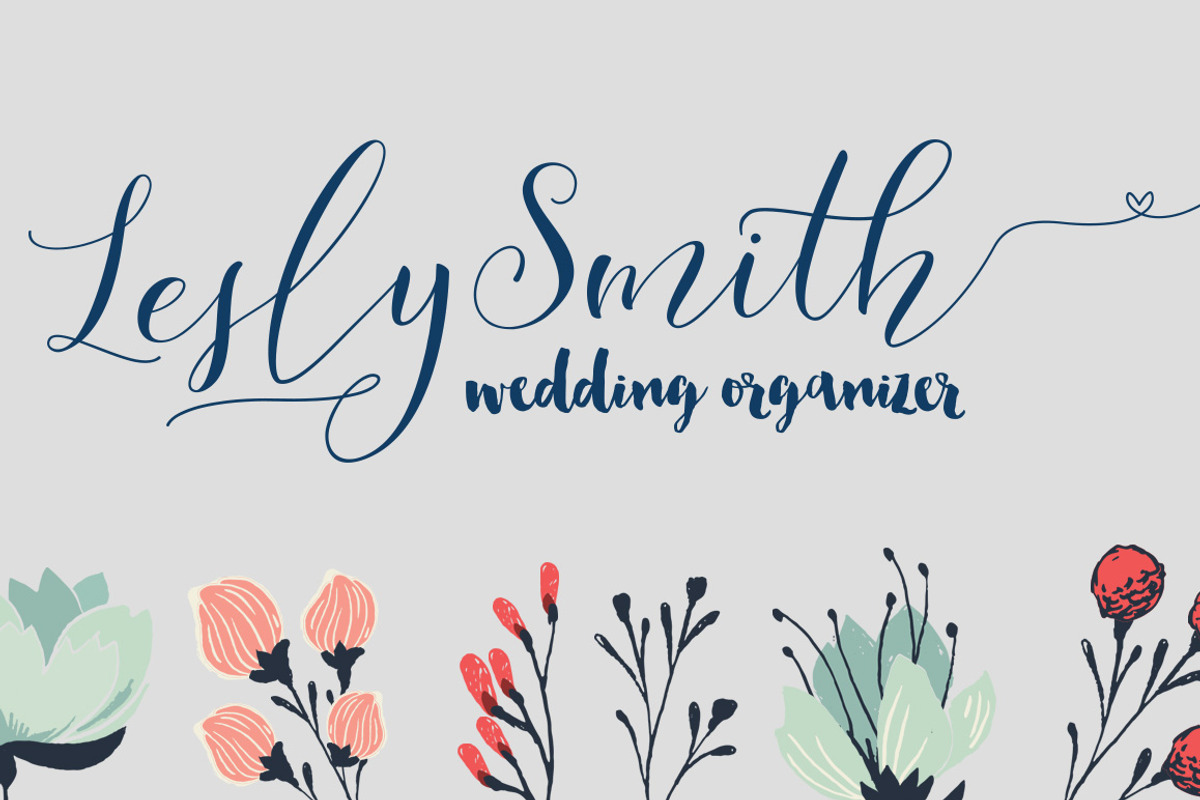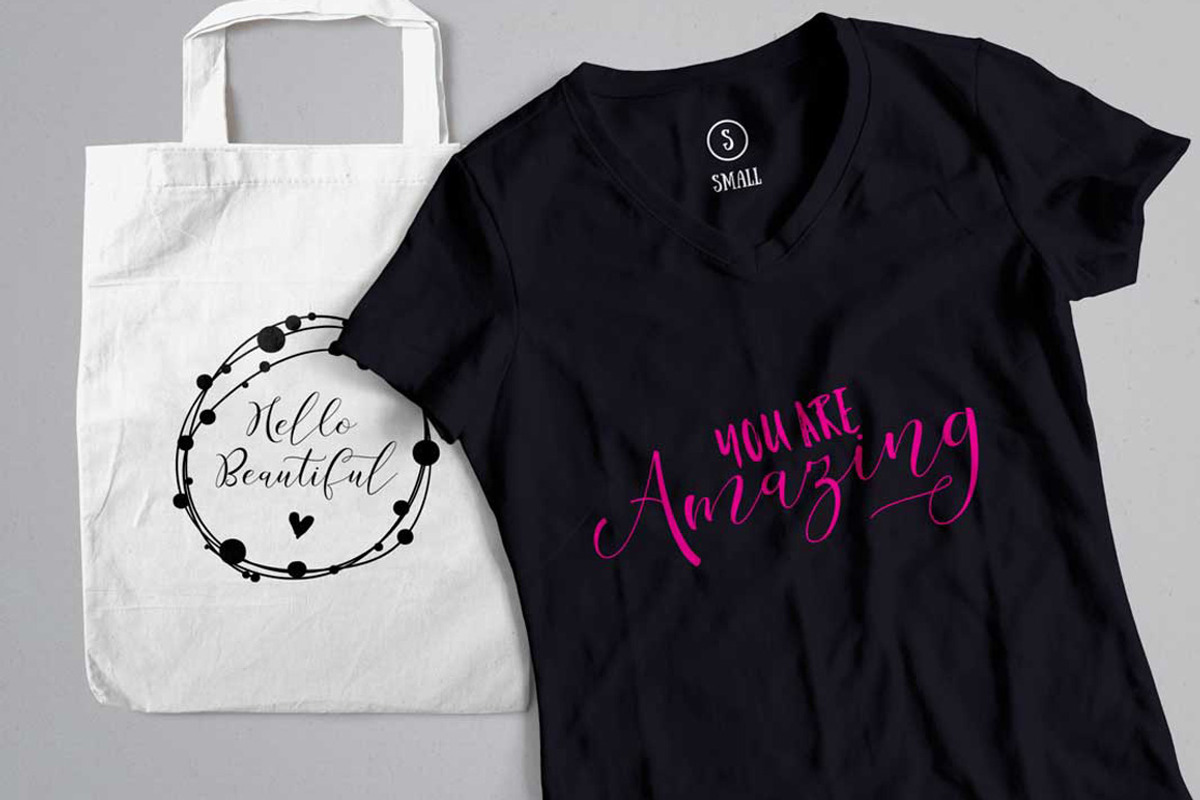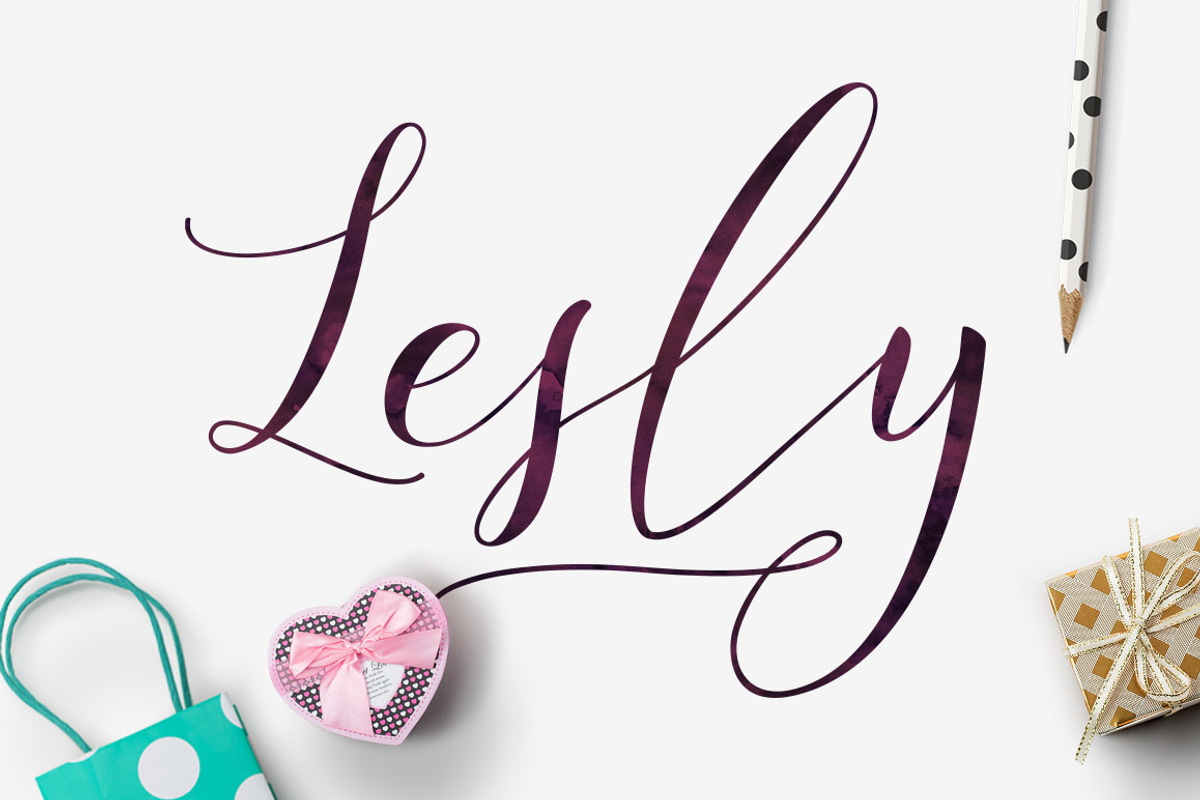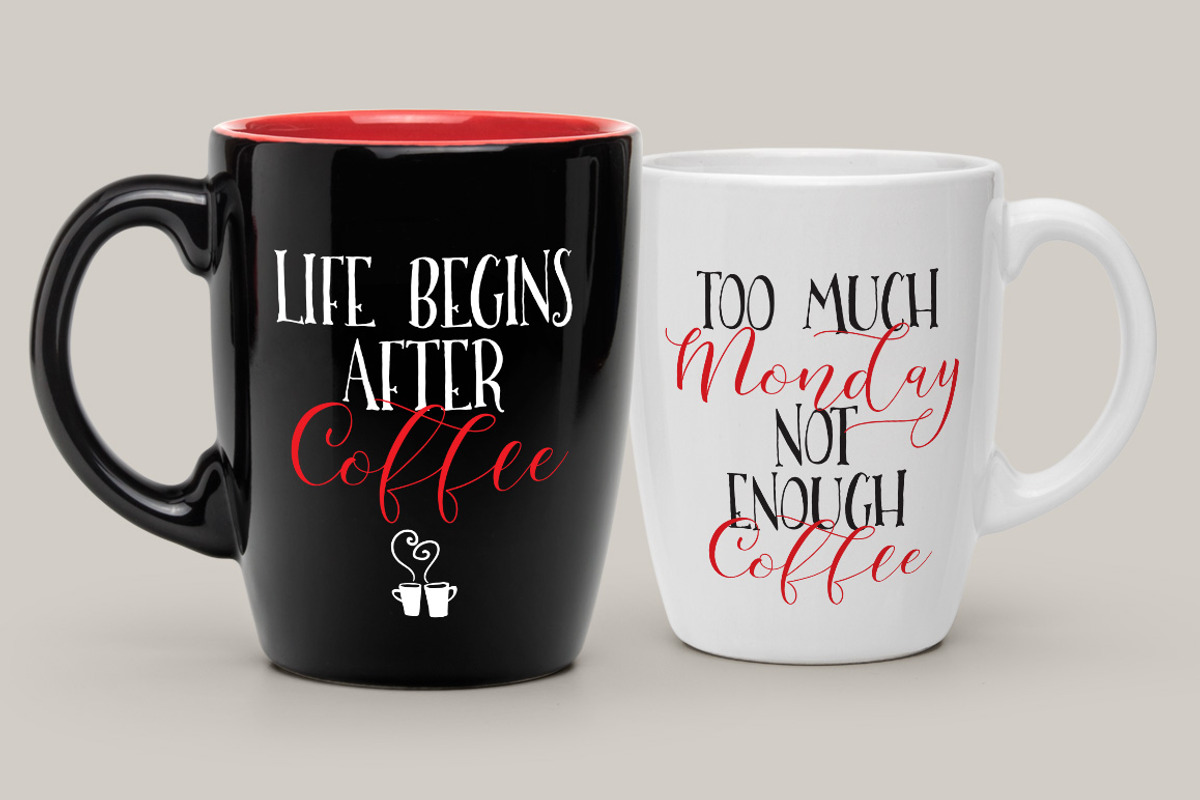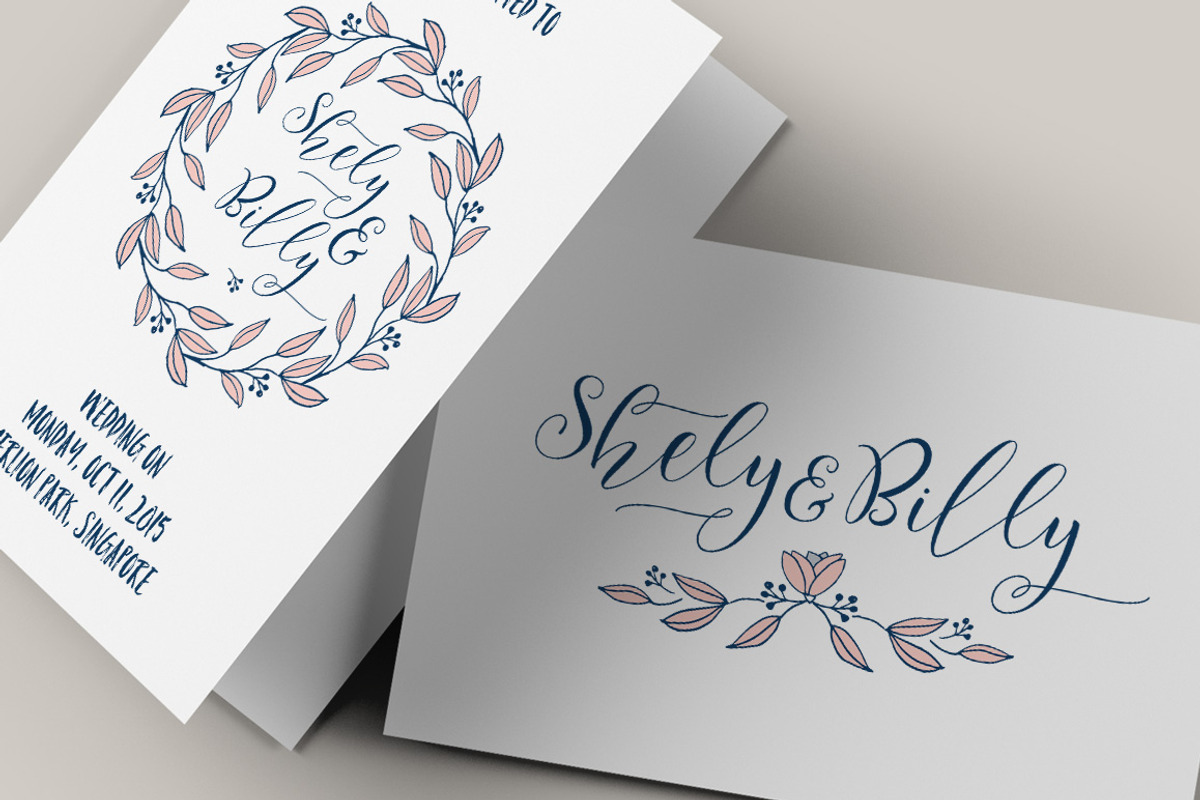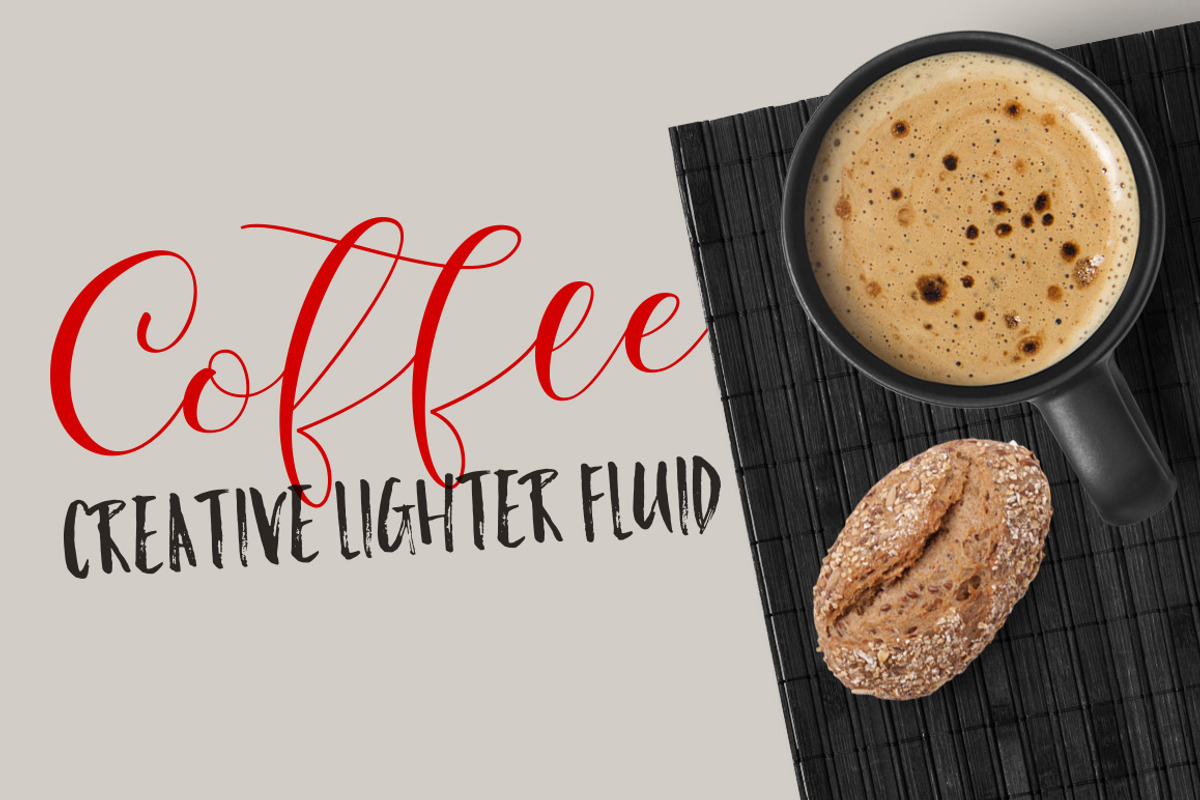
lesly font
lesly font by mysunday is a font selected for branding, posters, packaging, typography.
- Including a tons of glyphs, alternates, ligatures.
Why lesly font is worth a look
lesly font by mysunday fits naturally into Branding, posters, packaging, typography.